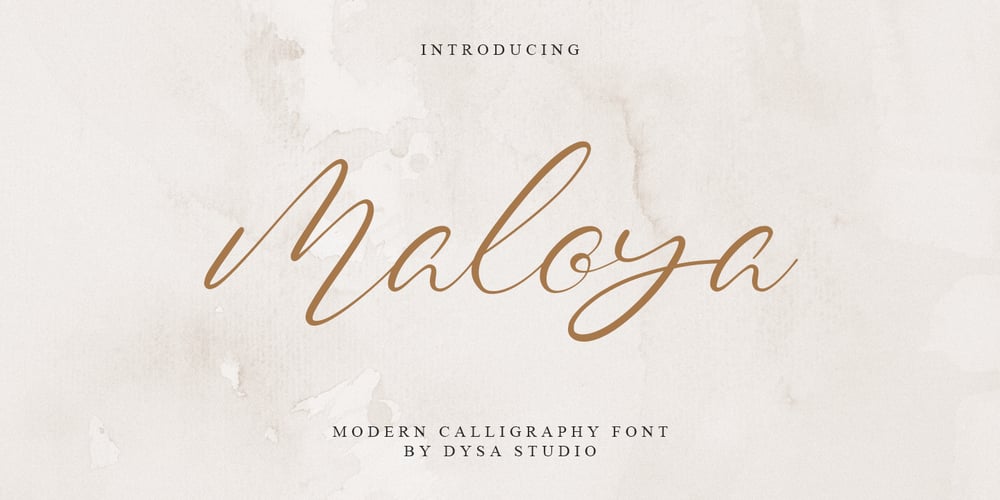
Maloya Font Family was designed by Yusup Saputra and published by DYSA Studio. Maloya contains 1 styles and family package options. Maloya is a new handwritten font. This another collection of calligraphy is perfect for your next branding project, excellent for your business. Maloya have a natural edges, so this font gives an authentic handcrafted feel style.